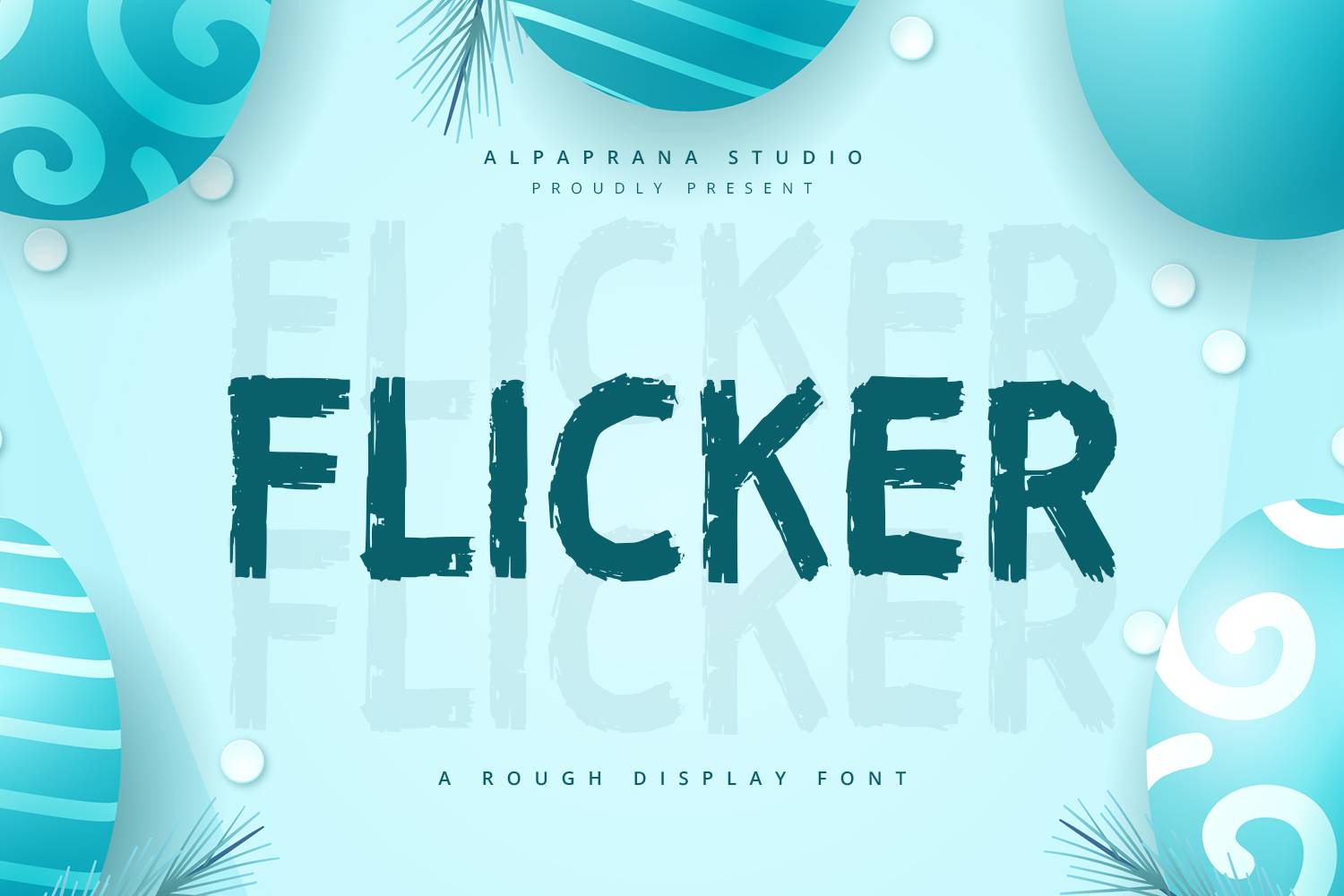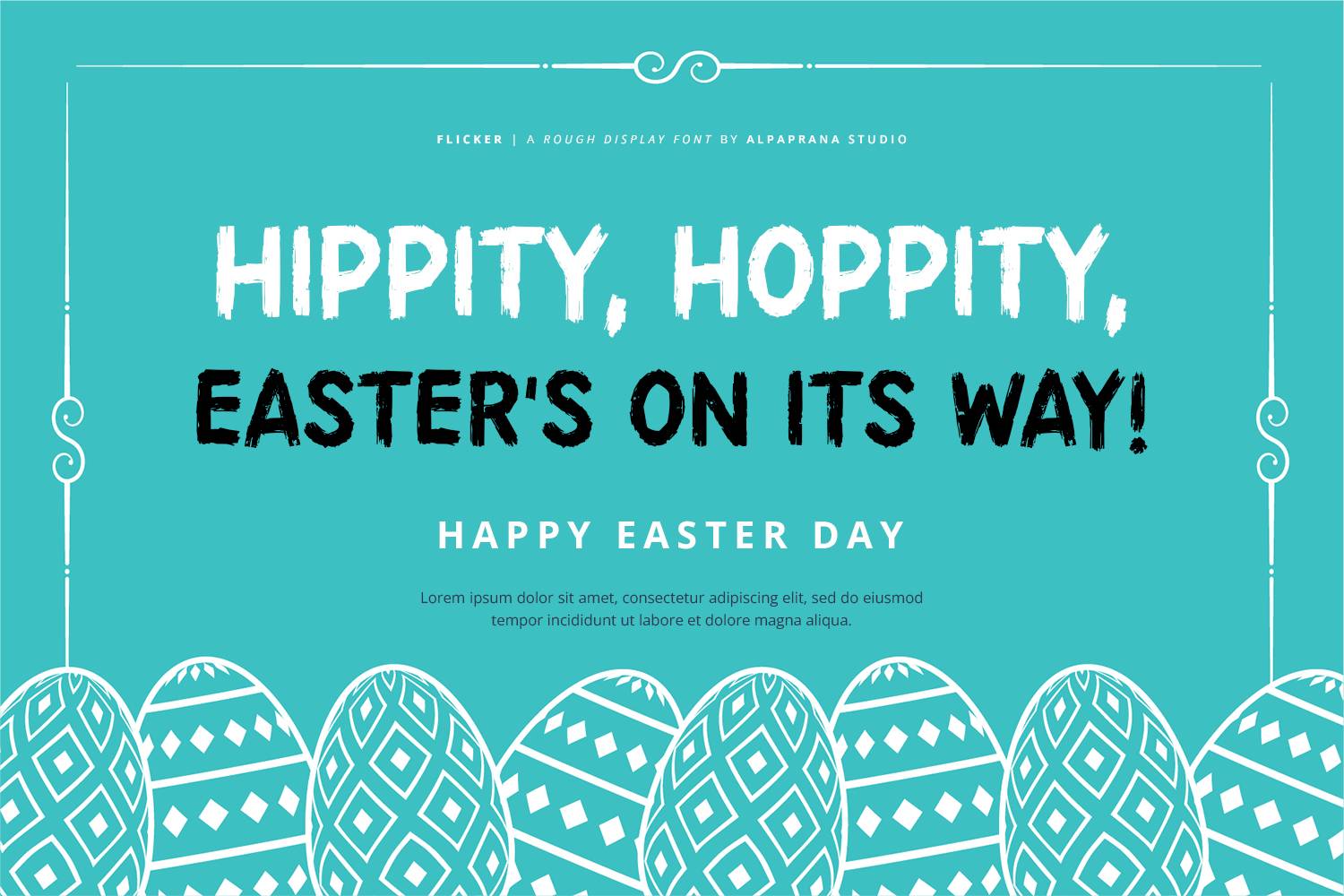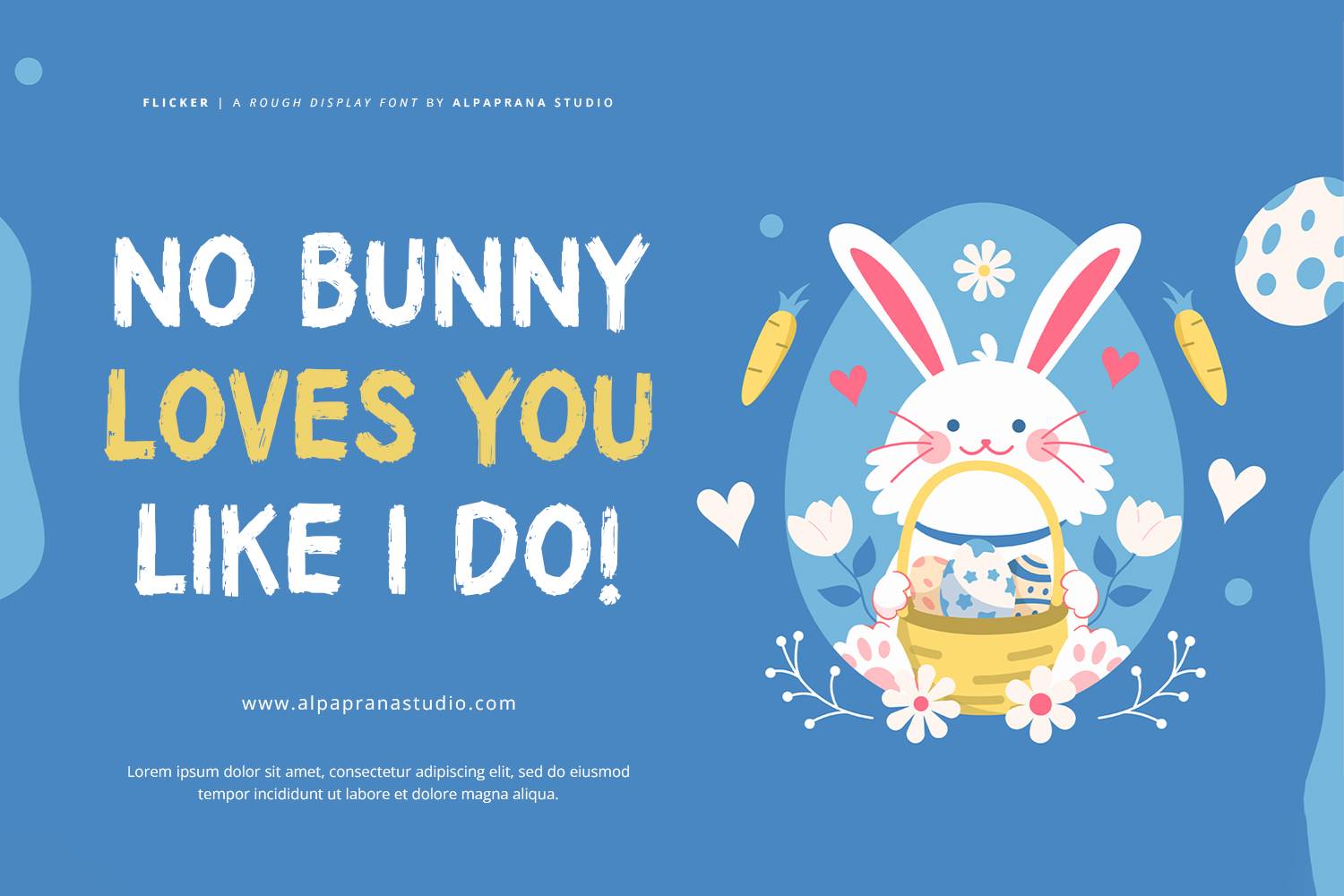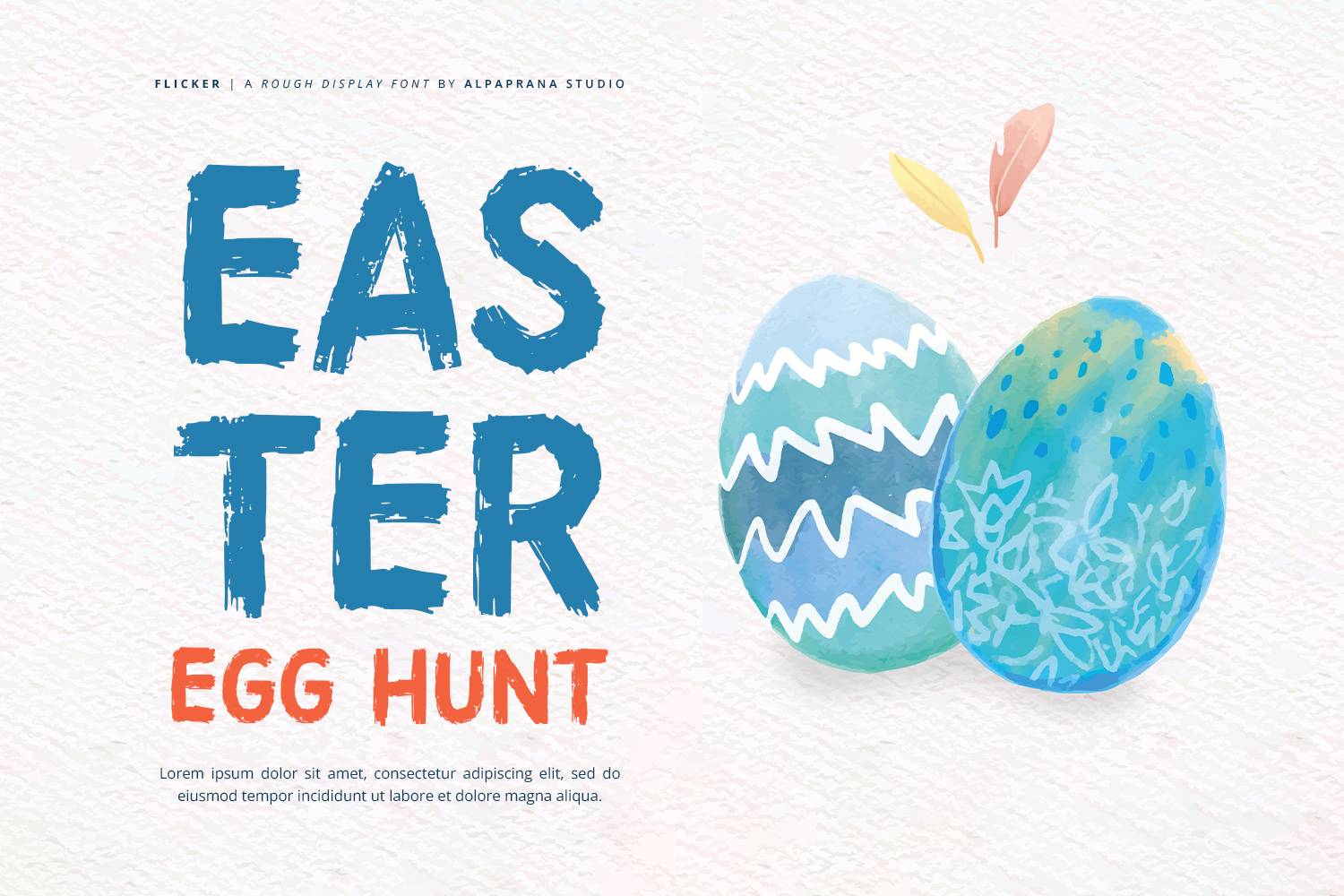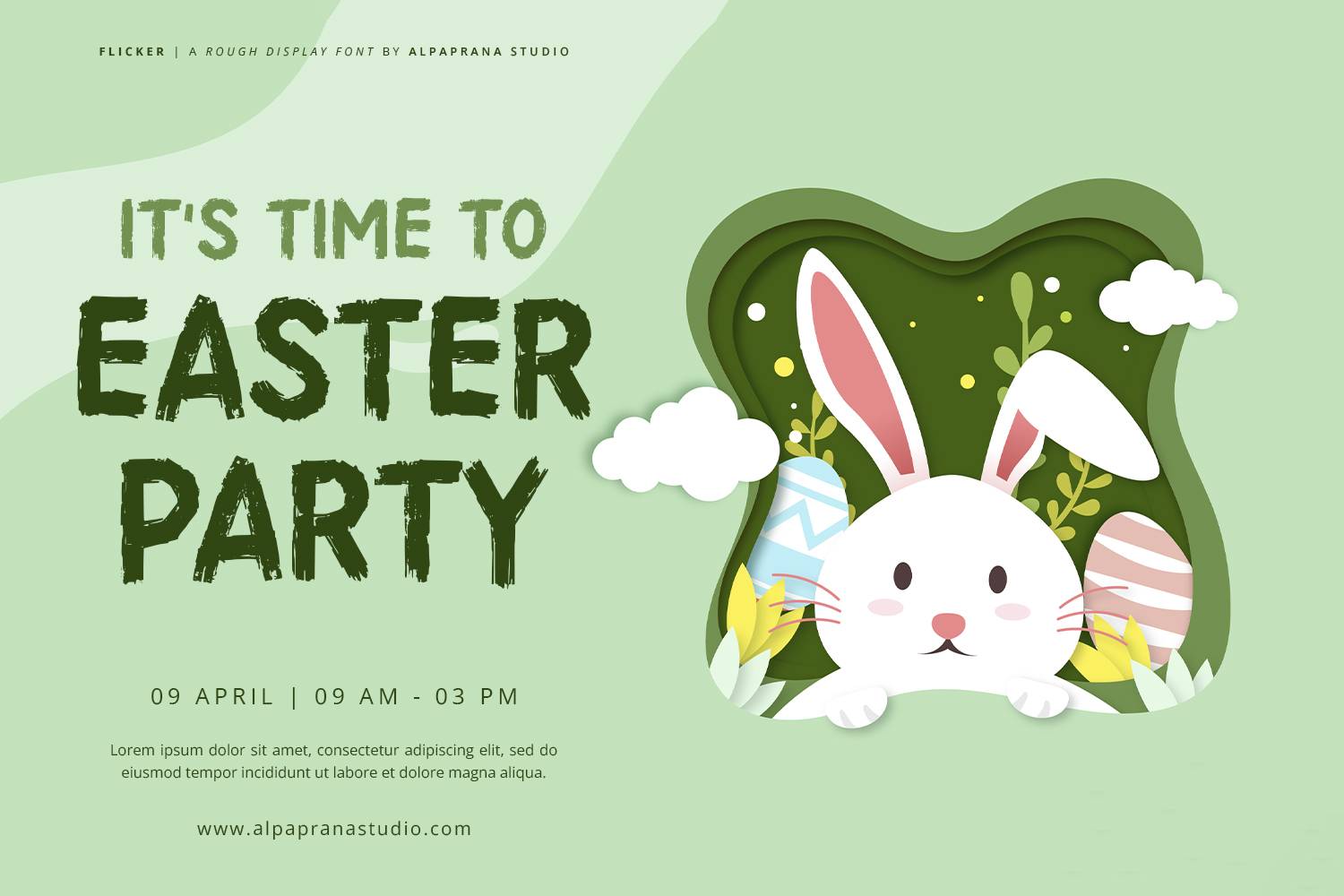
Flicker Font is a bold, expressive sans serif typeface with a rough, textured appearance that gives it a hand-painted, distressed feel. Its strong, uneven strokes and all-caps style make it perfect for creating eye-catching headlines, posters, or branding that needs a raw, edgy, and energetic vibe. This font works well where a bold statement with artistic flair is desired, especially in creative and casual design projects.
Flicker Font
About Flicker Font